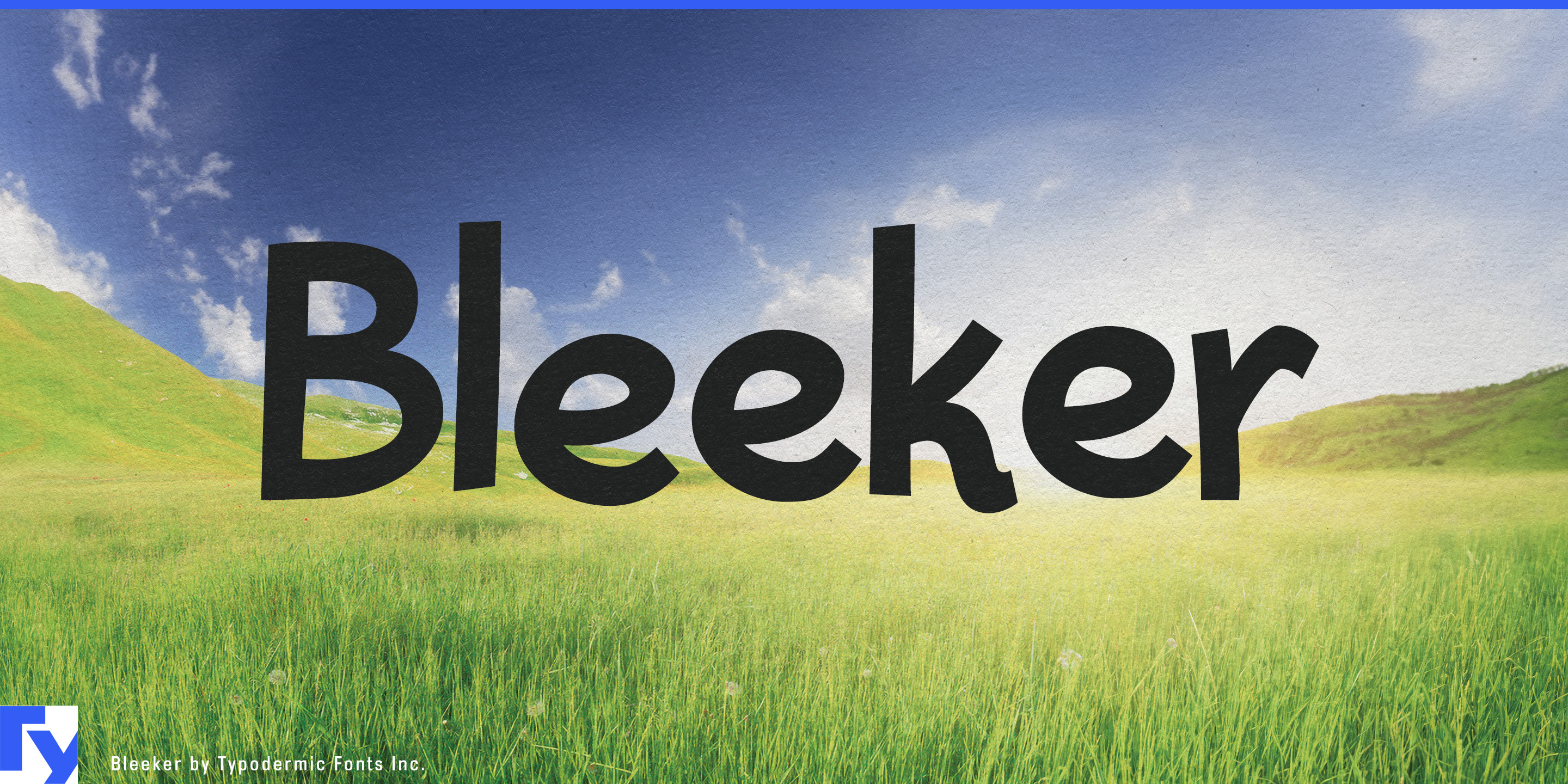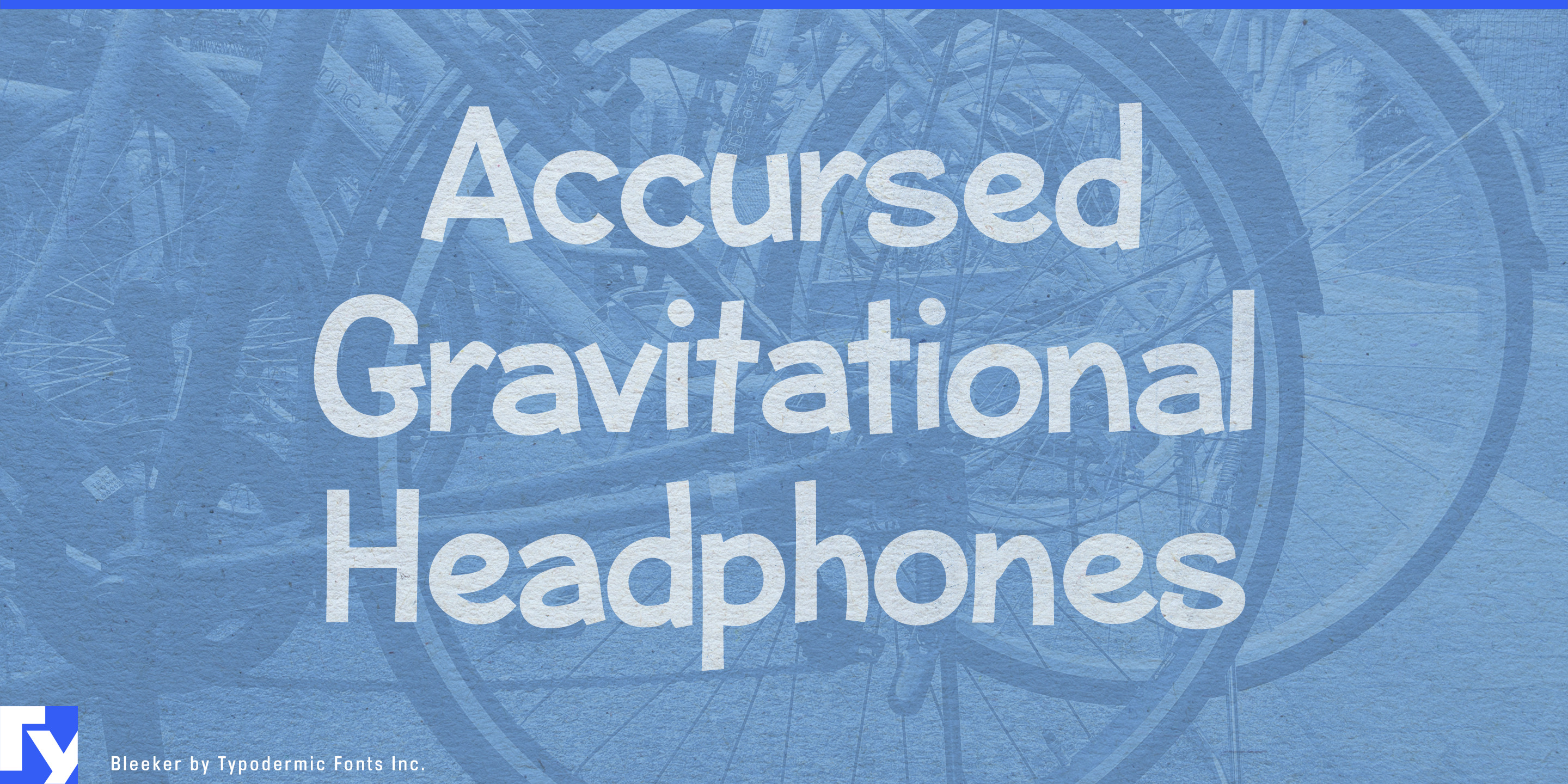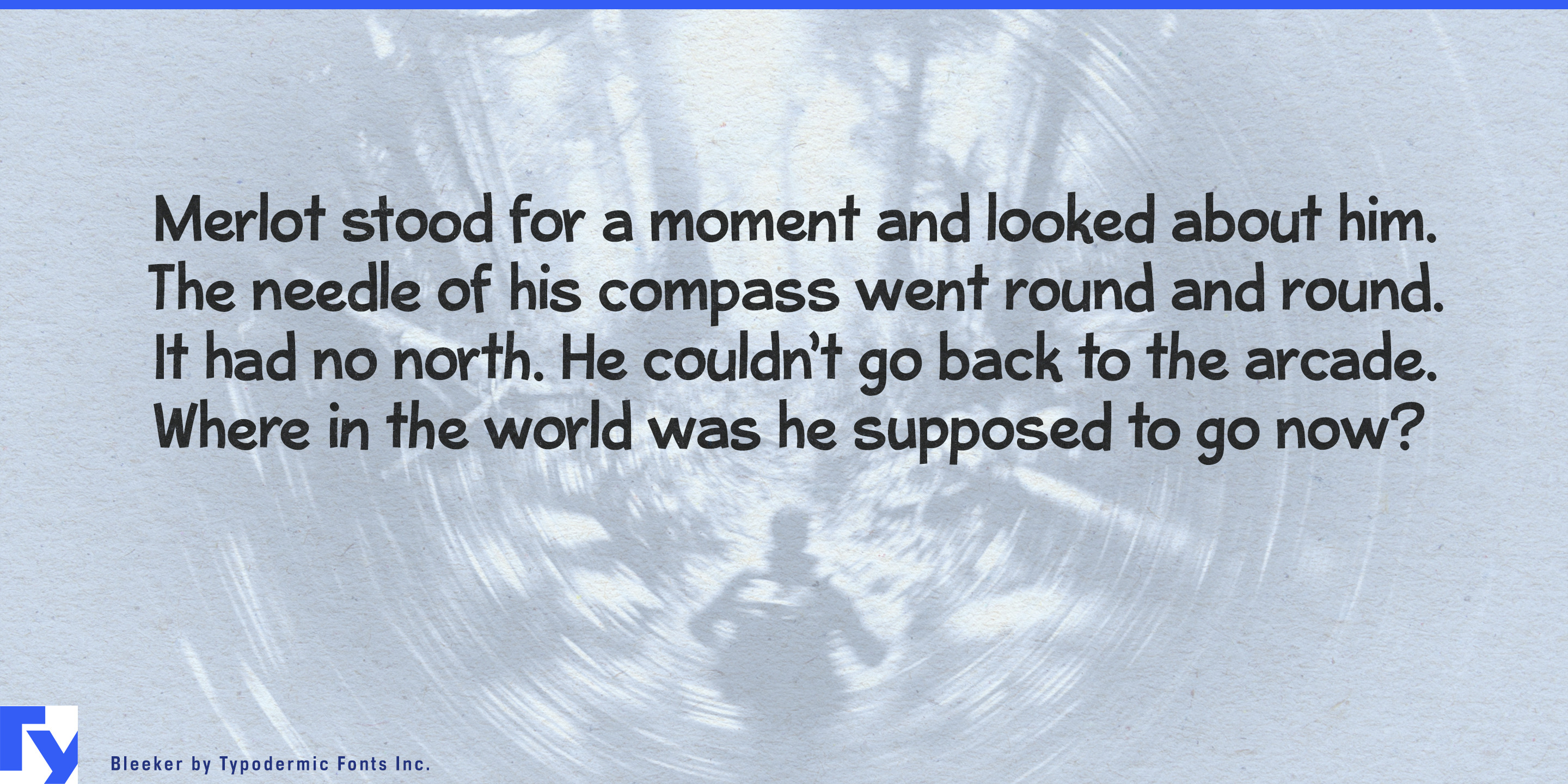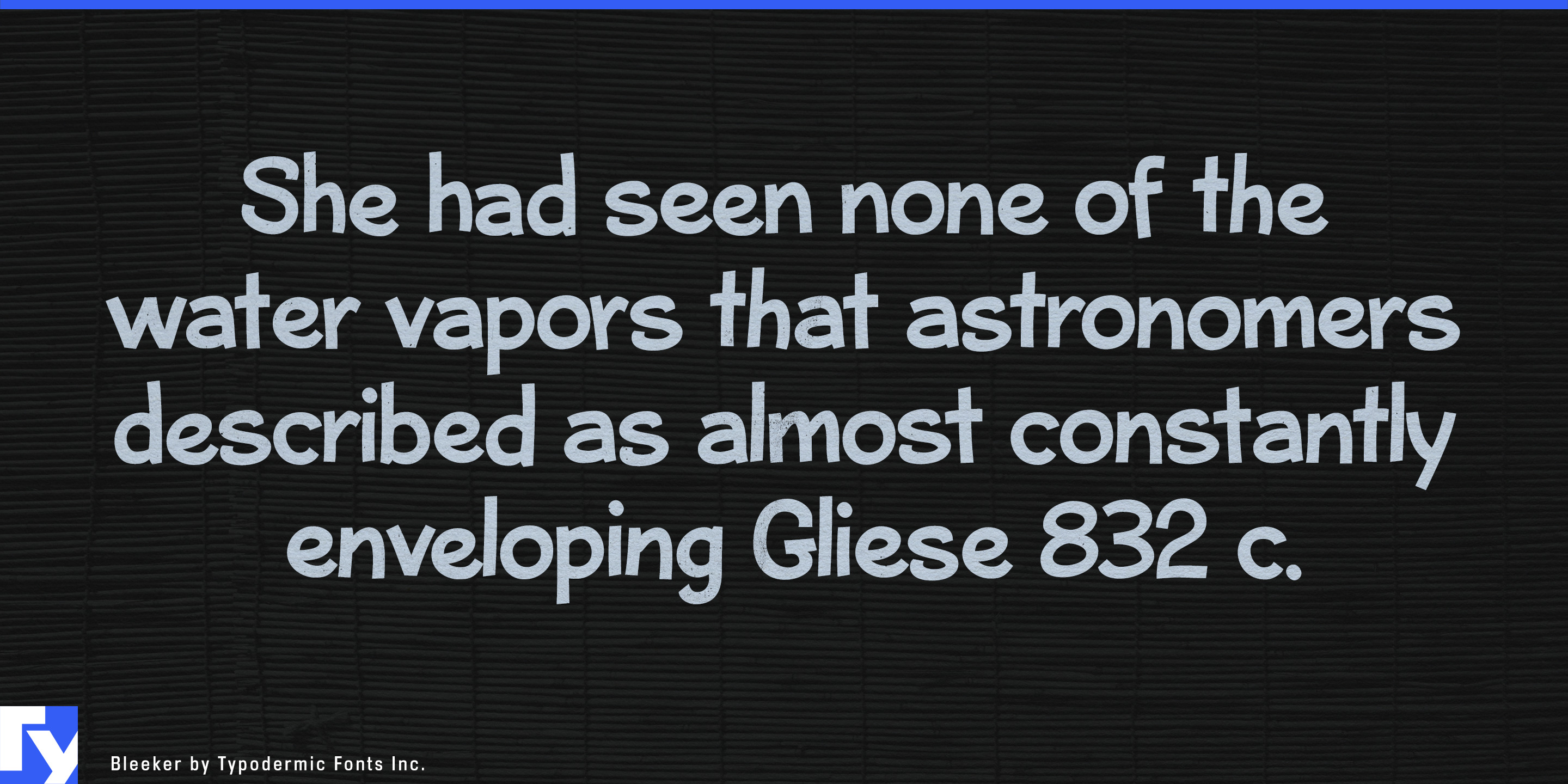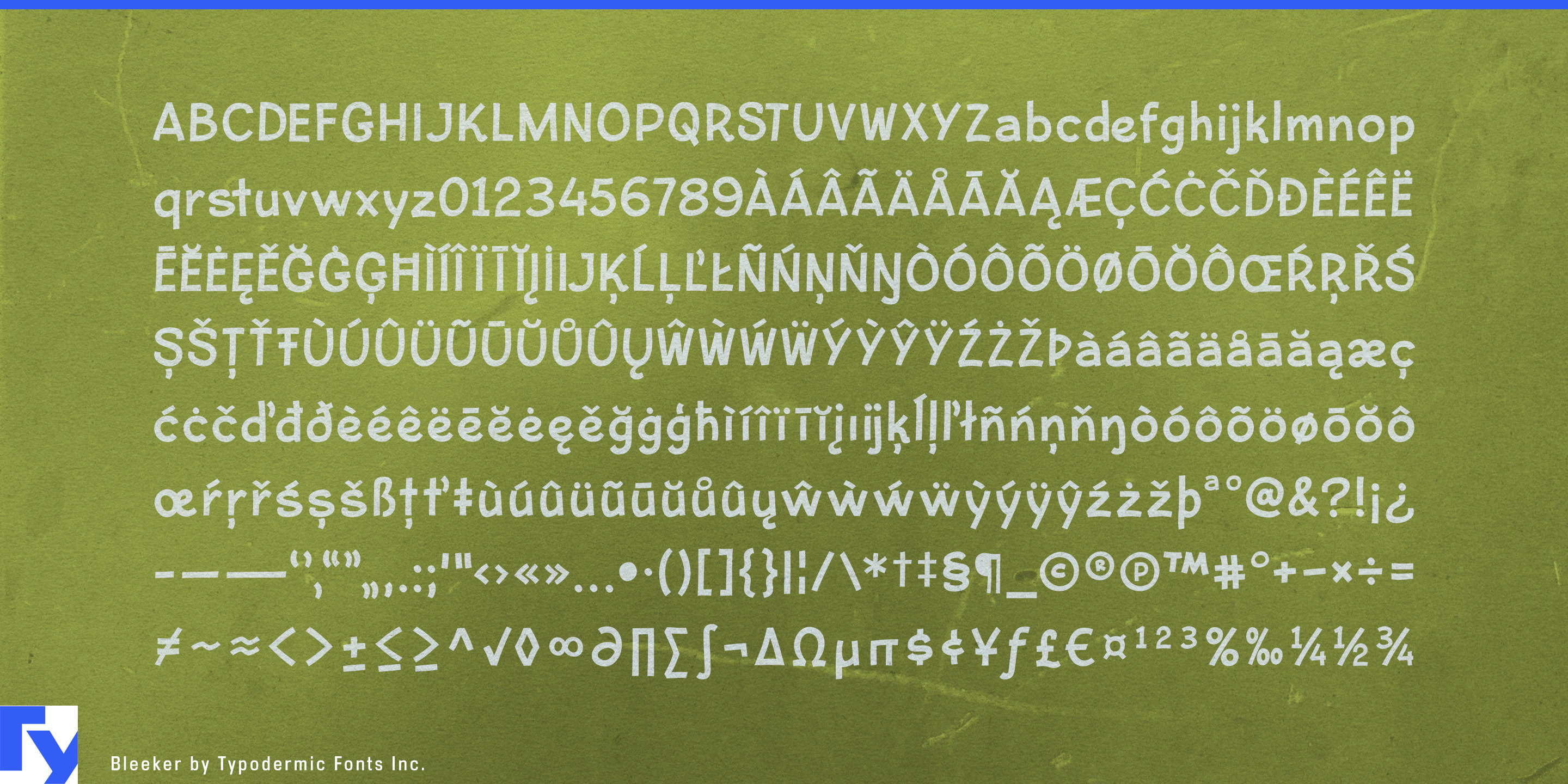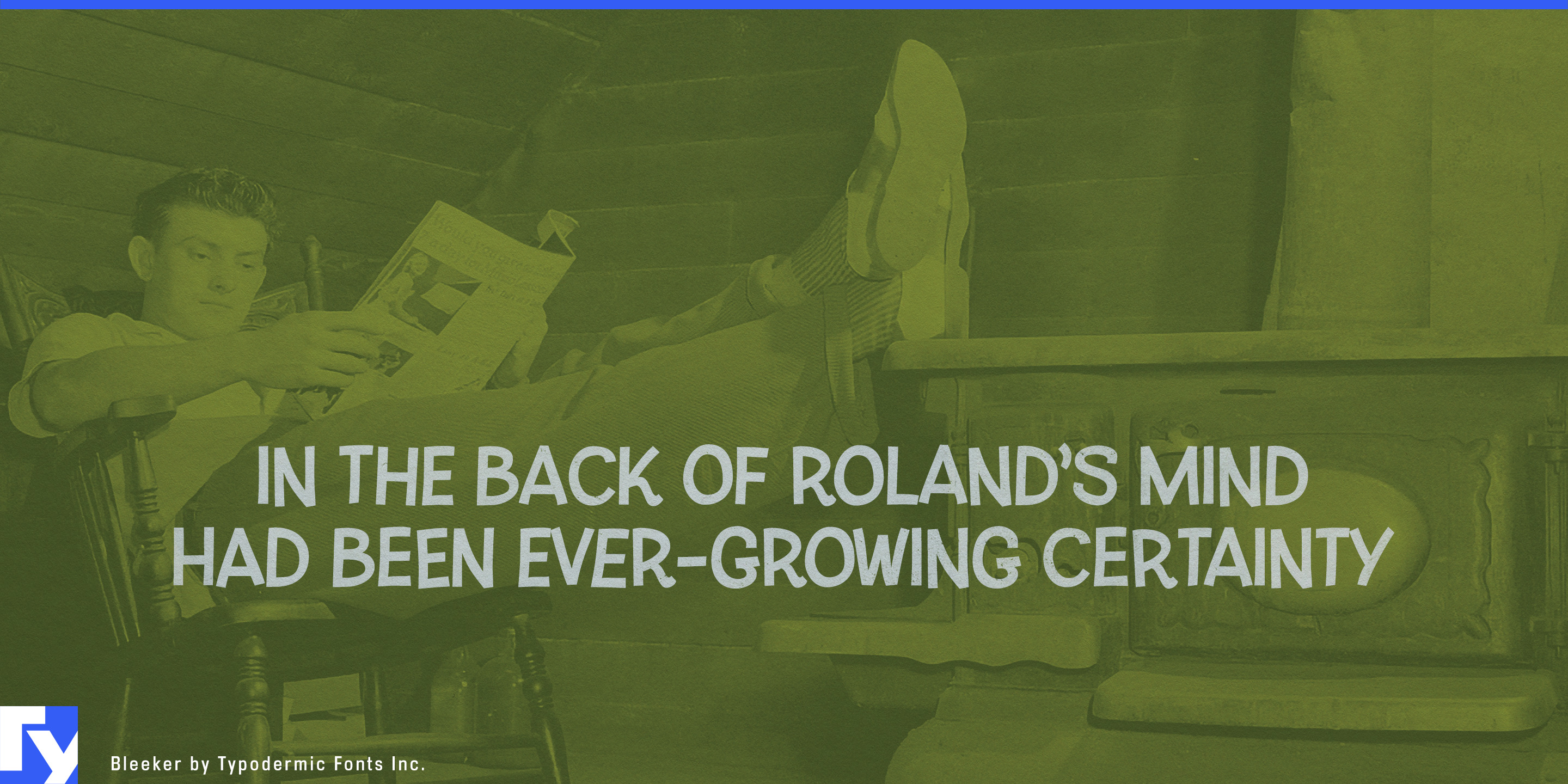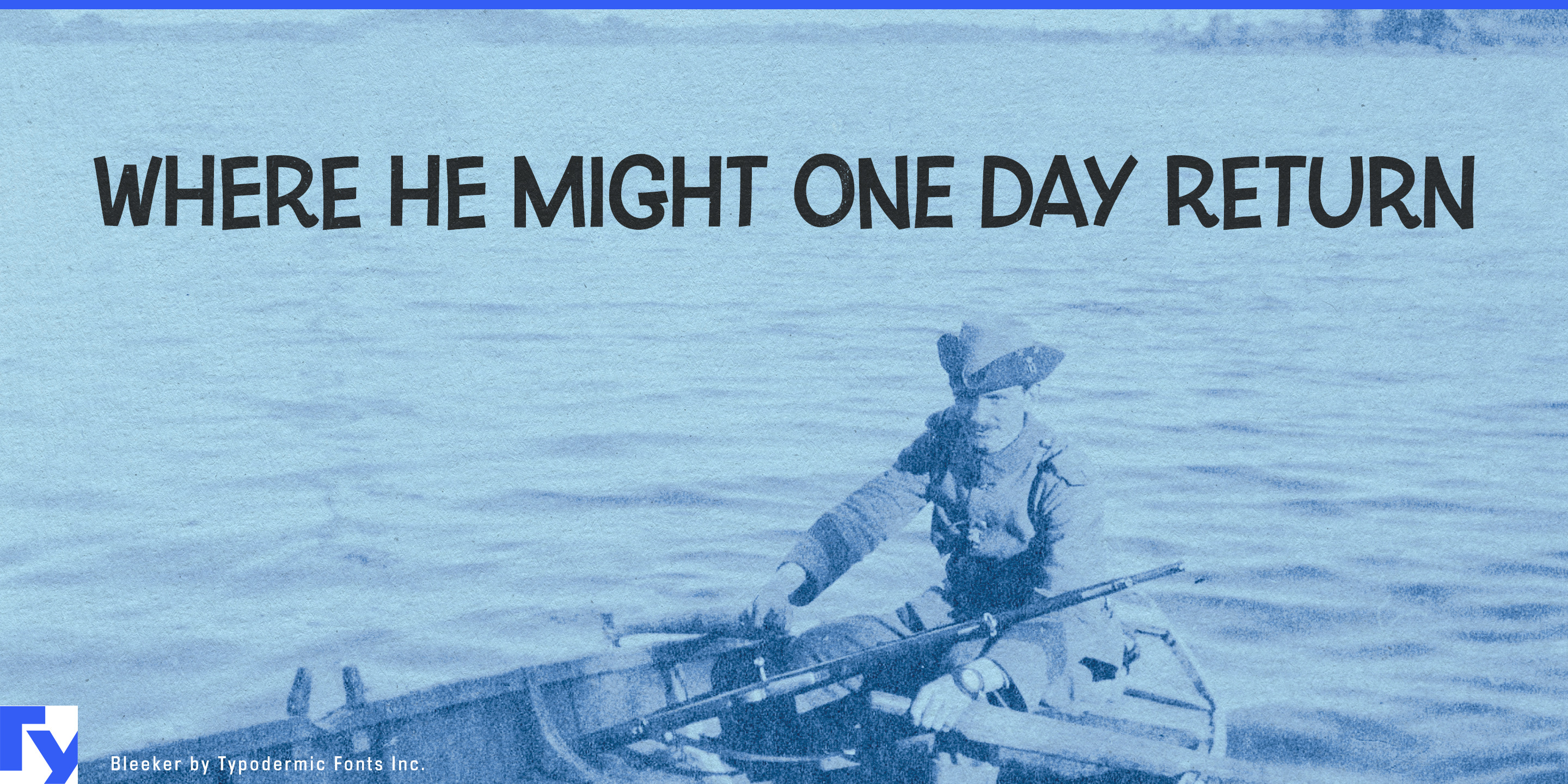
Bleeker
Bleeker is the handwritten sans typeface that strikes the perfect balance between relaxed personality and polished readability. Its easygoing letterforms and minimal stroke modulation give text a natural, pen-drawn feel—without the clutter or fuss that often comes with script-style fonts. The result is a friendly typeface that’s as comfortable in a comic panel as it is on a coffee bag or event flyer.
Originally designed with tight spacing for captions, Bleeker keeps your words compact and efficient while preserving a conversational flow. In OpenType-savvy apps, custom letter pairings ensure smooth connections and a handwriting-like rhythm. This isn’t just a casual font—it’s a well-engineered tool for designers who need warmth without sacrificing clarity. From playful branding to approachable packaging, from lighthearted social posts to educational materials, Bleeker adapts with ease. It speaks fluently across most Latin-based European languages, making it a natural choice for global projects that still want to feel personal.
Choose Bleeker when your designs need to be friendly, clear, and unmistakably human—because approachable doesn’t have to mean unrefined.